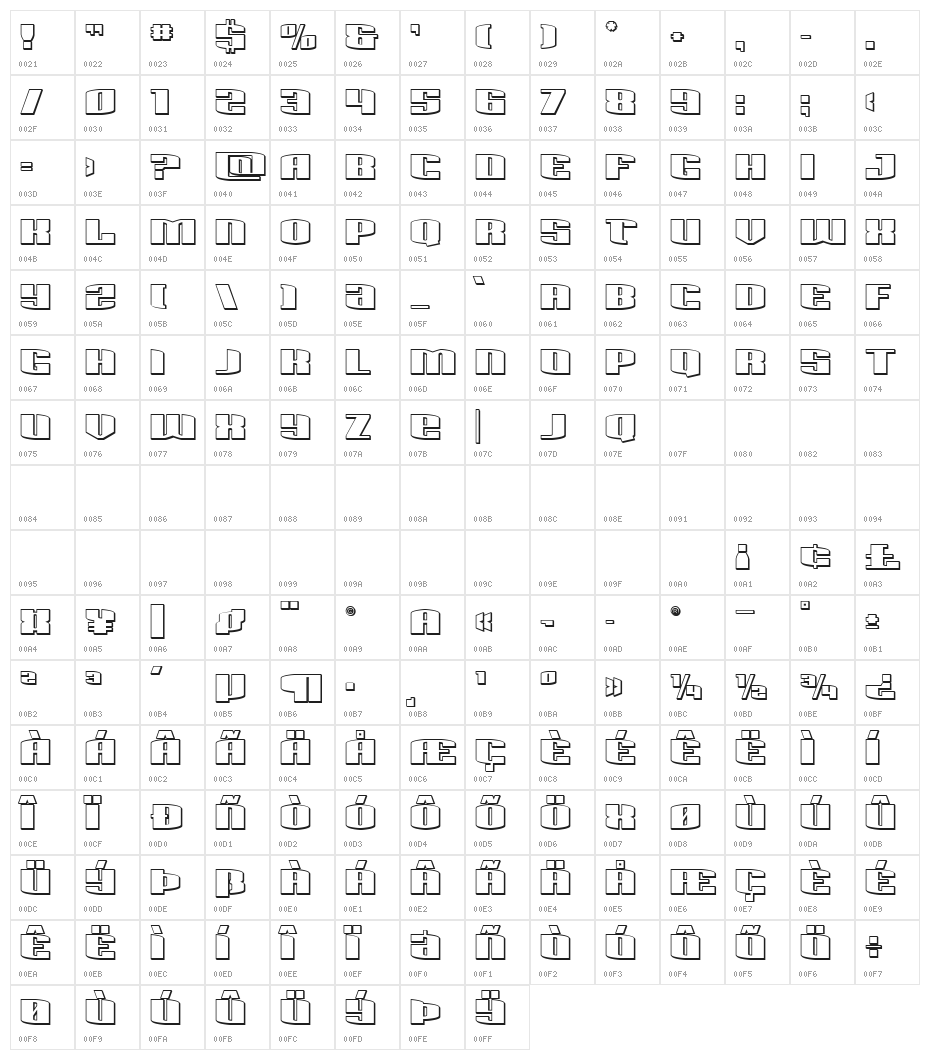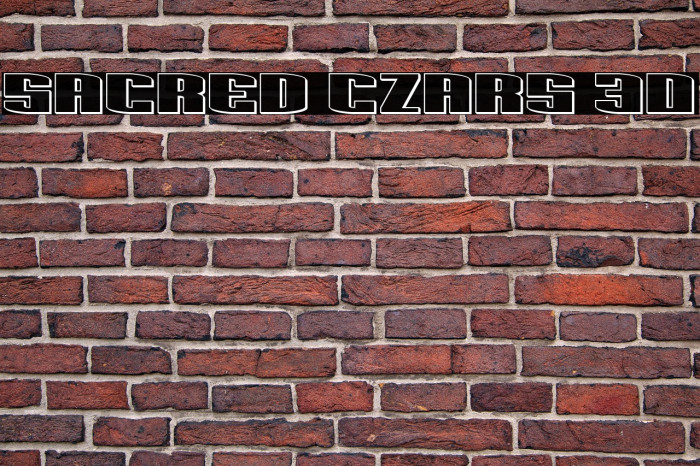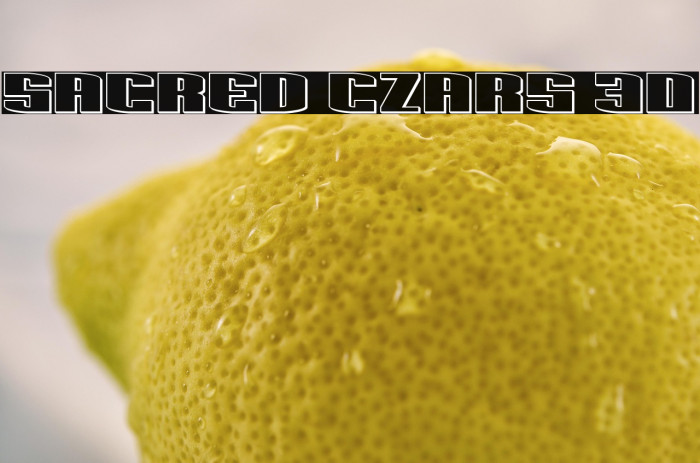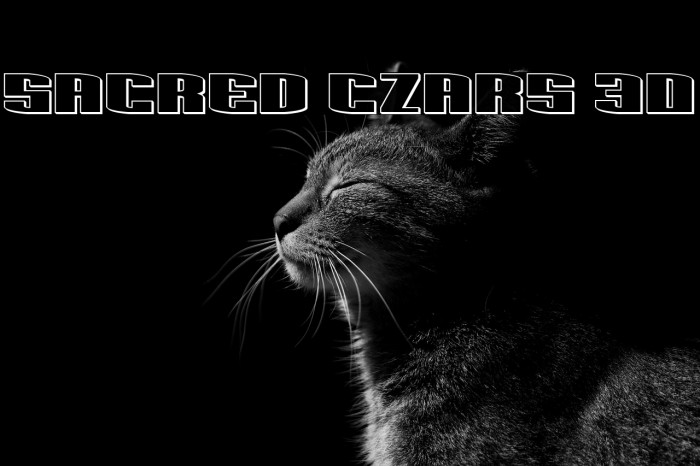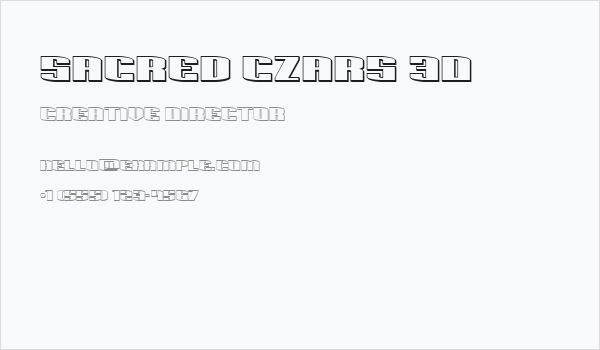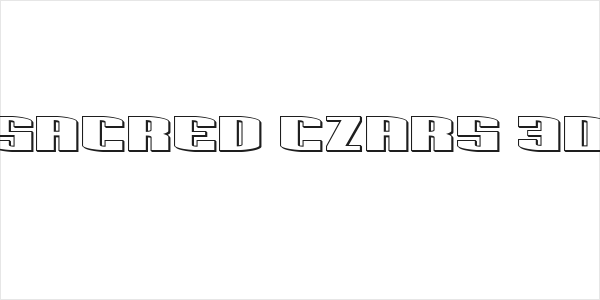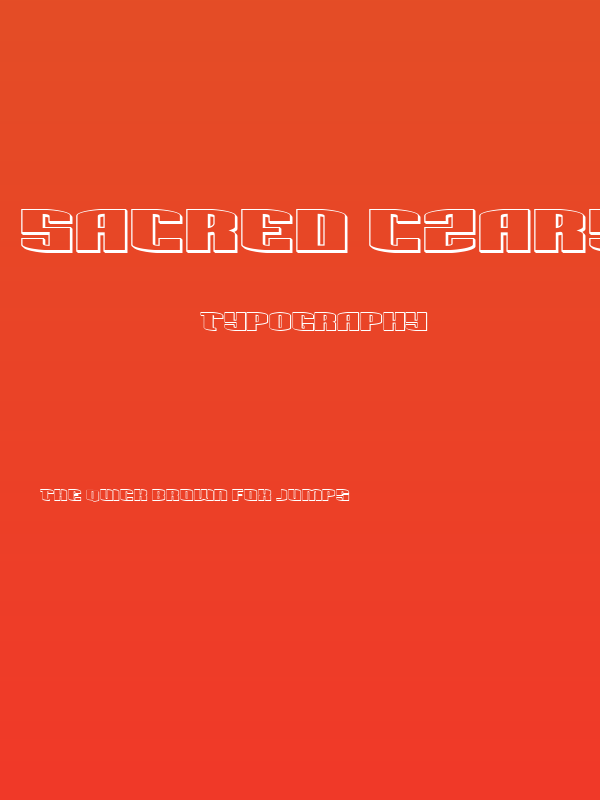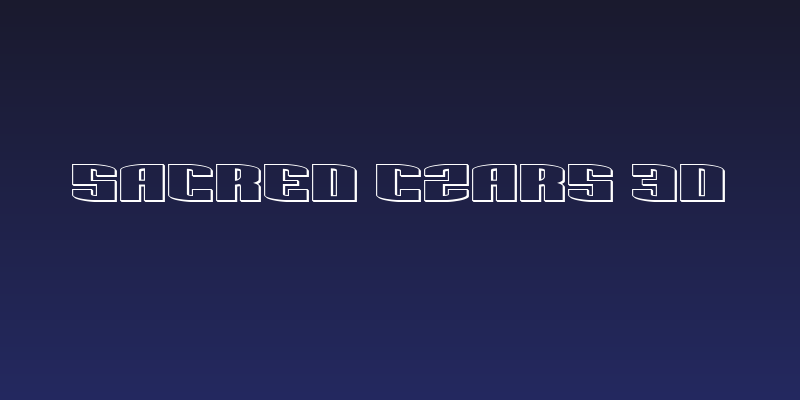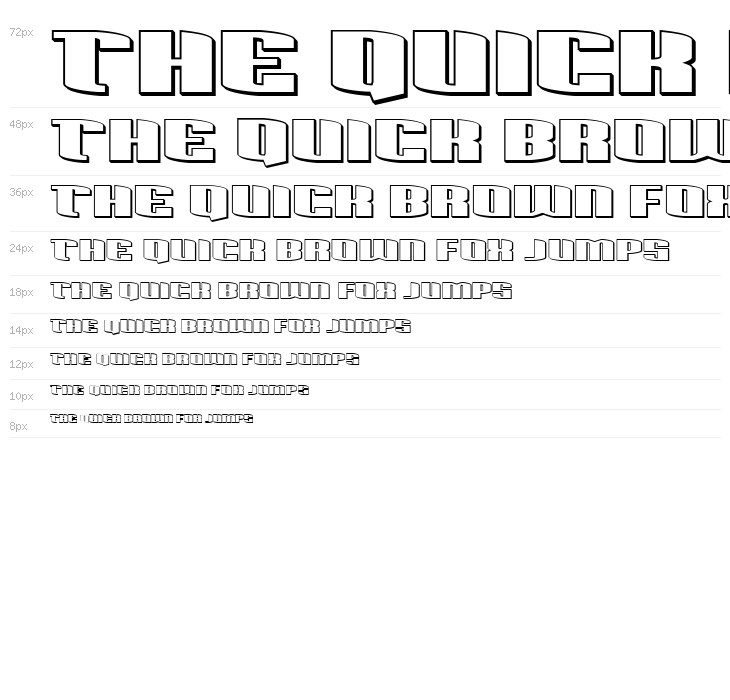
Sacred Czars 3D Font
Sacred Czars 3D Description
This font features a bold, three-dimensional design with a strong presence. Each character is outlined, giving it a hollow appearance that enhances its 3D effect. The geometric shapes and angular lines create a futuristic and dynamic look. The uppercase letters are particularly striking, with a consistent height and width that contribute to a uniform appearance. The numbers and special characters maintain the same bold style, ensuring cohesion across all elements. This font is ideal for projects that require a modern and impactful aesthetic.
| Proposed Projects | Ideal for video game titles, movie posters, branding for tech companies, or any project needing a modern, impactful look. |